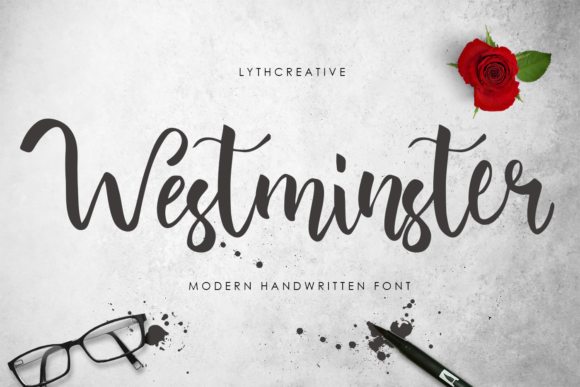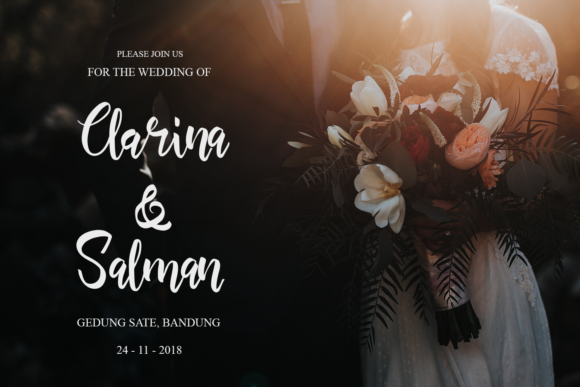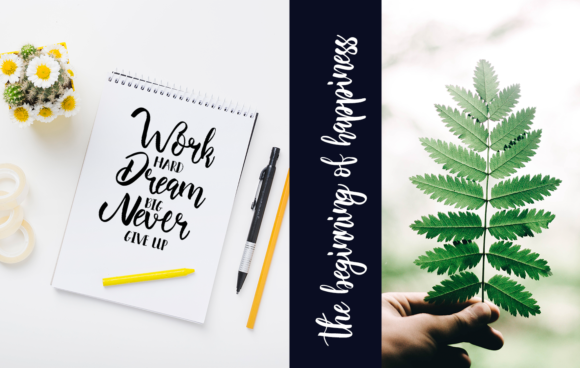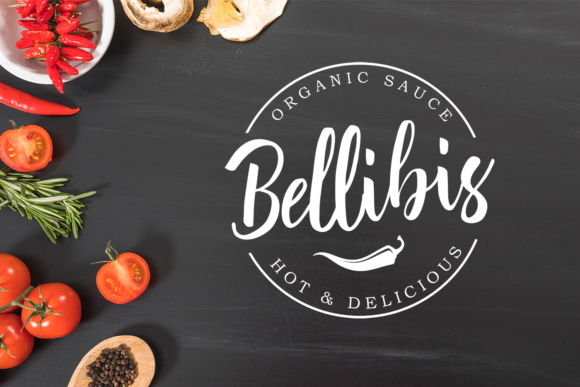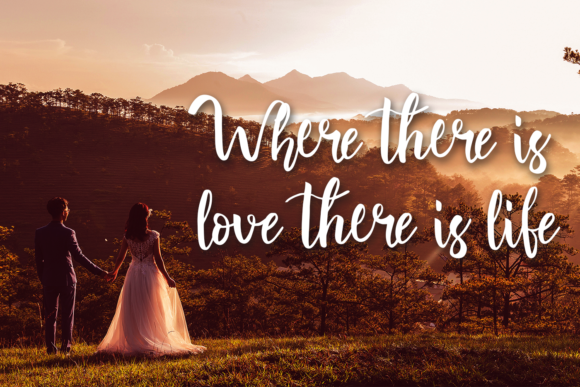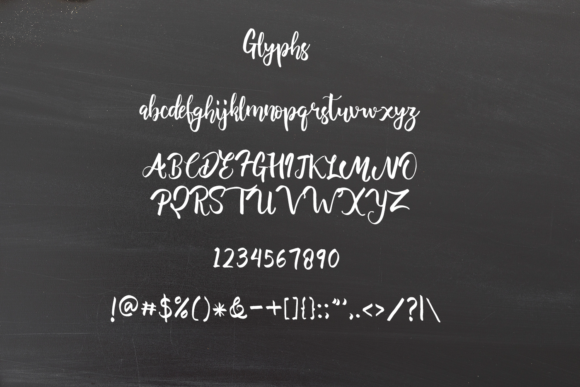
Westminster Font
About Westminster Font
Westminster is a beautiful handwritten font with an unique style. It includes elegant movements and is perfect for adding some grace and sophistication to your designs.